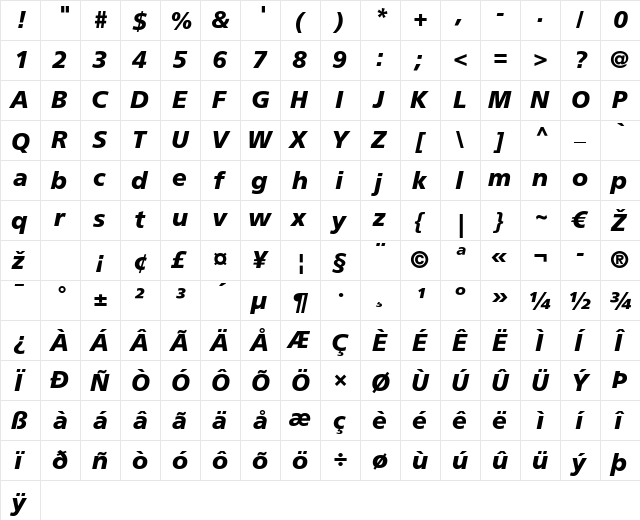
Frutiger LT 55 Roman Bold Italic Font Preview
| Designer | Adrian Frutiger |
Design Context for Frutiger LT 55 Roman Typeface
Frutiger LT 55 Roman offers clean, dependable letterforms without strong stylistic allegiance, making it a practical choice for designers who need flexibility. The dynamic lean of this cut emphasises speed and emphasis in any layout. The heavy weight commands attention and anchors typographic hierarchies.
Pro Tip: Try Frutiger LT 55 Roman for annotation and caption copy alongside an upright companion — the contrast in angle creates a dynamic but ordered typographic system.